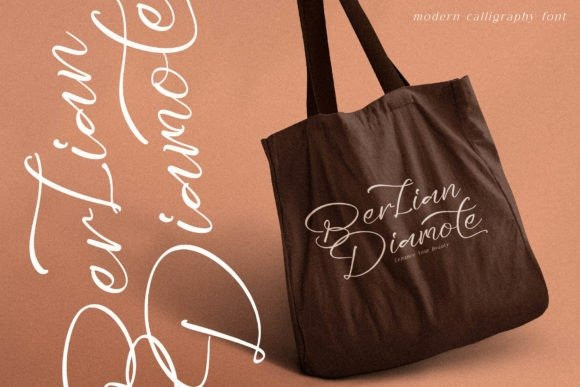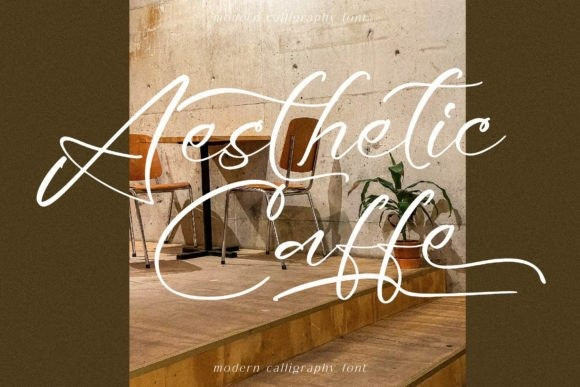
Sethyonka Font
Sethyonka – Modern Calligraphy Font, from Glorytype Studio, suitable for any projects such as: logos, branding projects, homeware designs, product packaging, mugs, quotes, posters, shopping bags, t-shirts, book covers, name card, invitation cards, greeting cards, label, photography, watermark, special events, and all your other lovely projects that need a beautiful script taste.